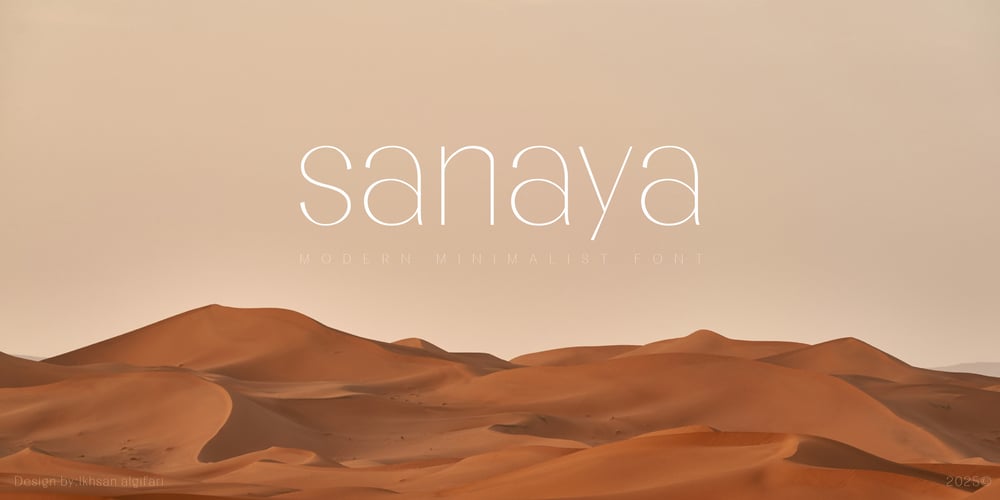
Shanaya
Shanaya font
Shanaya Font Family was designed by Ikhsan Algifari and published by Gifari. Shanaya contains 1 styles and family package options. SHANAYA is the perfect fusion of modernity and sophistication. Crafted with attention to every curve and detail, this elegant typeface embodies a sense of refined luxury that elevates any design. Its clean lines and minimalist aesthetics make it an ideal choice for contemporary branding, editorial design, and high-end projects.Whether you’re designing a logo, website, invitation, or product packaging, SHANAYA brings an air of exclusivity and class to your work. The smooth transitions and balanced proportions give it versatility, allowing it to work beautifully in both print and digital environments. With a modern, yet timeless appeal, SHANAYA ensures that your message stands out with effortless elegance.Perfect for luxury brands, fashion, or any project that requires a touch of grace and modernity, SHANAYA makes a lasting impression. Its stylish contours and refined letterforms will capture attention, conveying your brand’s vision with confidence and clarity.Embrace the beauty of modern elegance choose SHANAYA for your next design project and let your creations speak with elegance, style, and sophistication.